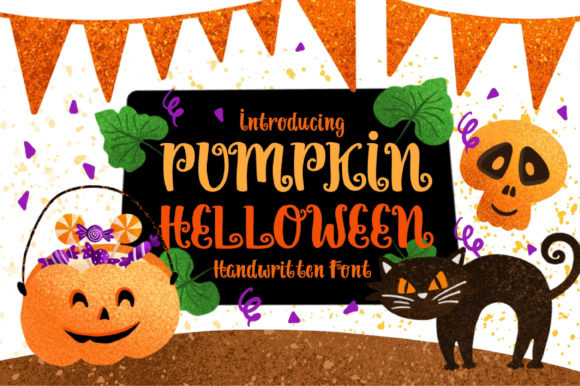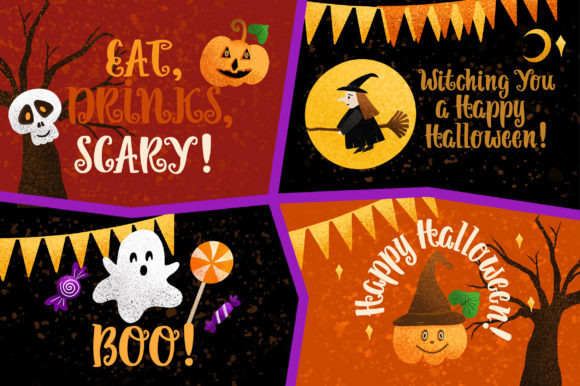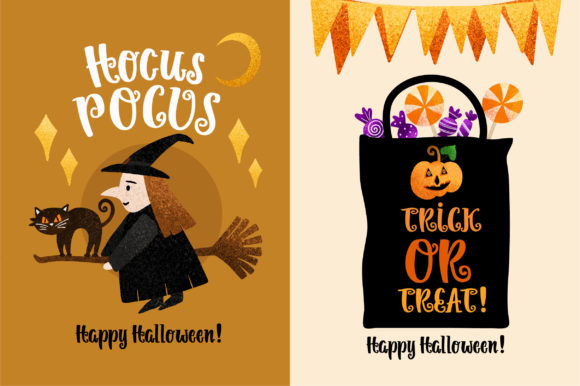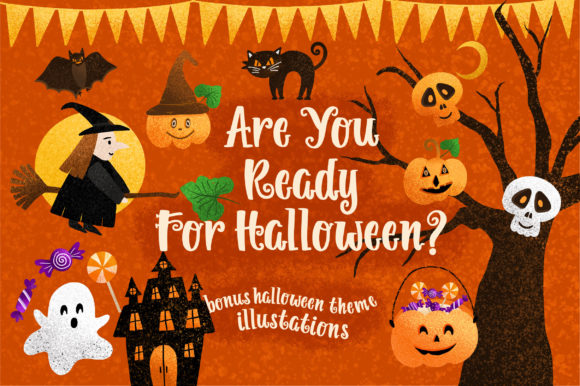
Pumpkin Helloween Font
About Pumpkin Helloween Font
Pumpkin Helloween is the one-and-only handwritten font for any Halloween crafting ideas. It’s spooky, scary and weird, and will turn any design project into a true standout!